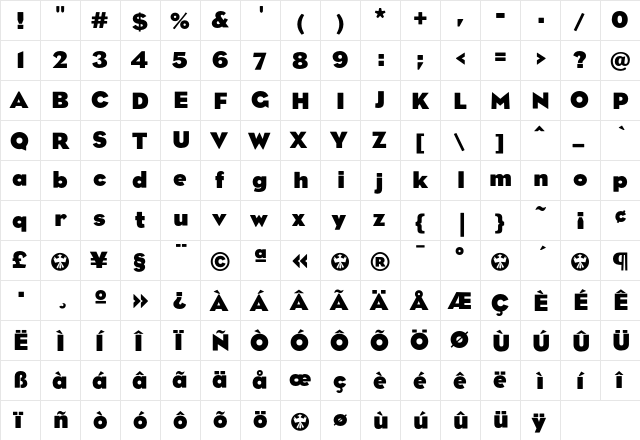
BureauEagleBold Regular
Design Context for BureauEagleBold Typeface
BureauEagleBold takes a measured approach to typography — its balanced proportions and neutral character make it a reliable workhorse for both digital and print work. The heavy weight commands attention and anchors typographic hierarchies.